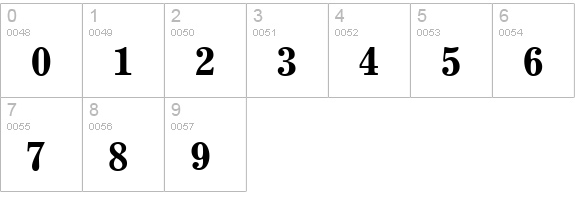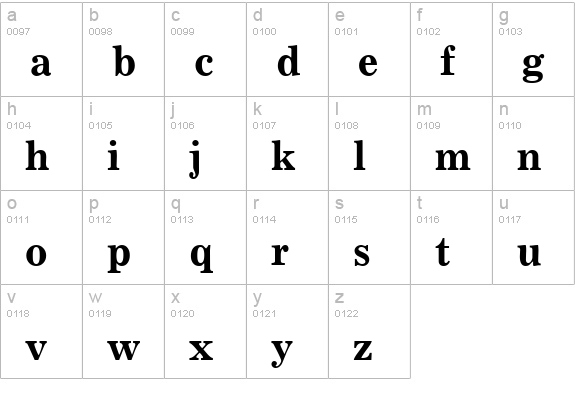
Exemplary-Bold Font Details
Exemplary-Bold is a strong, high-contrast variant in the Exemplary typeface family \xE2\x80\x94 well suited to headlines, attention-grabbing titles, and strong calls-to-action.
Exemplary-Bold is a striking and eye-catching font that exudes confidence and modernity. With its bold and commanding presence, this font is perfect for making a statement in headlines, titles, and branding materials. The thick strokes and sharp angles of Exemplary-Bold give it a strong and dynamic appearance that will draw attention to any design. What sets Exemplary-Bold apart is not only its bold design but also its versatility. Whether used in print or digital media, this font remains legible and impactful, making it a top choice for designers looking to make a bold statement. The best part is that Exemplary-Bold is completely free to download at FontsMarket.com. This means you can add this impressive font to your collection without any cost, allowing you to elevate your designs without breaking the bank. Don't miss out on this opportunity to access a high-quality and impactful font like Exemplary-Bold for free!